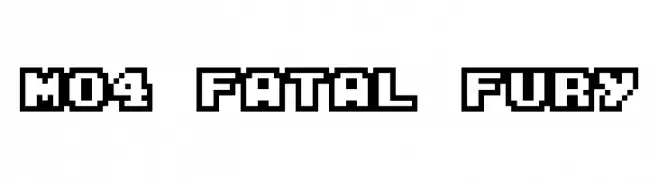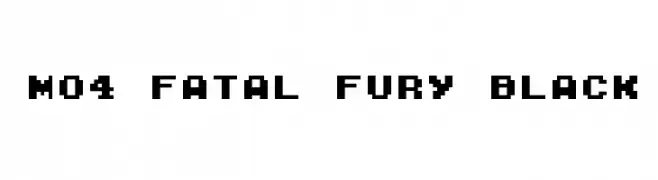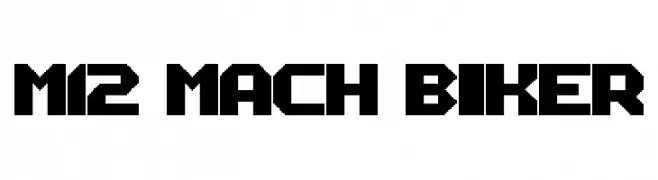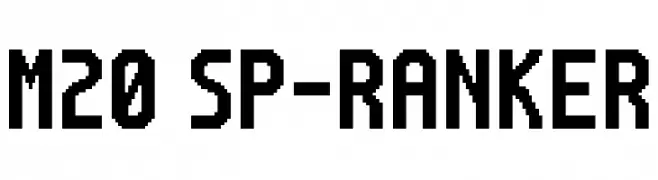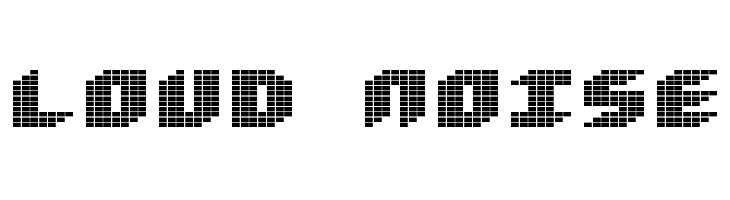
A pixelated, digital-style font with a modern, technological look.
A bold, angular font with a dynamic skew and geometric design.
A bold, pixelated font with a retro video game aesthetic.
A bold, pixelated font with a retro video game style.
A bold, geometric font with an industrial and digital aesthetic.
A bold, pixelated font with a geometric, digital display style.
A bold, geometric font with a modern, industrial style.